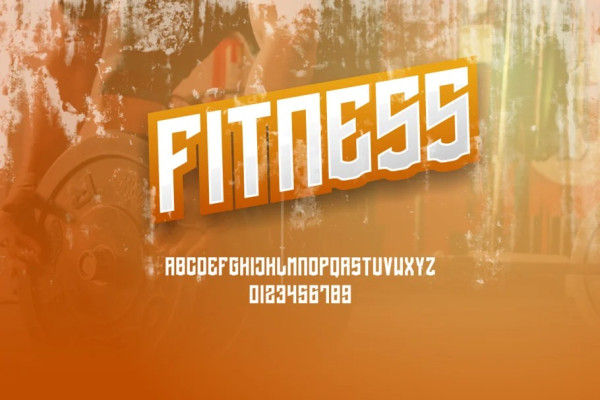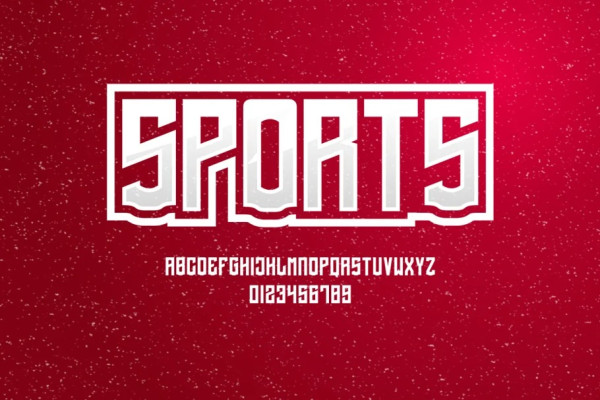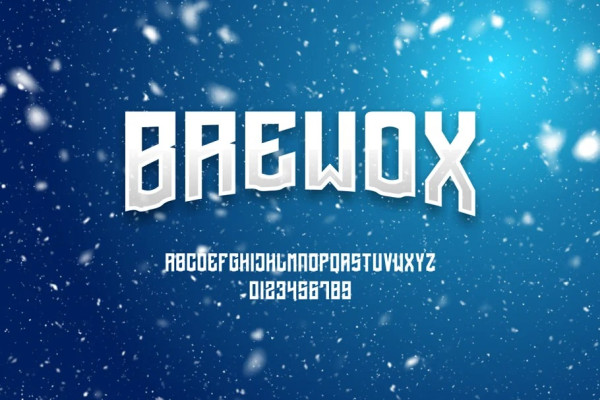
Brewox Font
Brewox Font – Modern Font is a bold and authentic display font. The font is suitable for any branding project like logo, t-shirt printing, esport, and many more. outstanding in a wide range of contexts.